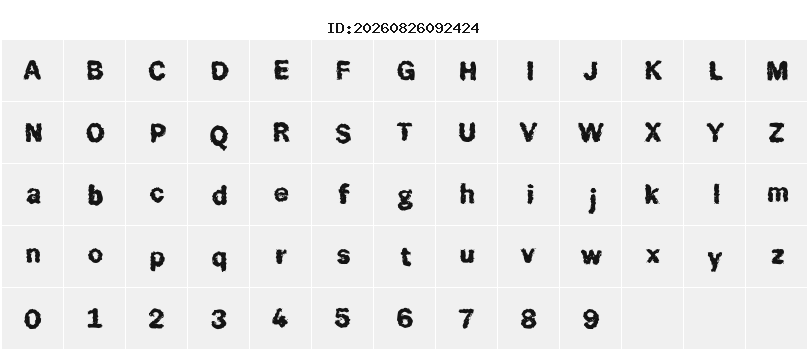
Wehryze Copiya Preview
• Font Name: Wehryze Copiya
About Wehryze Copiya.ttf
Wehryze Copiya.ttf is a modern, elegant sans-serif font designed for ultimate readability and visual harmony. Perfect for branding, headlines, web design, and print materials.